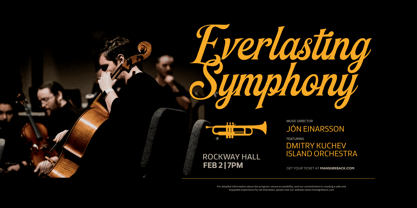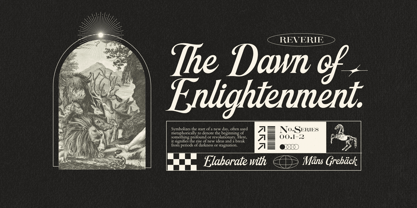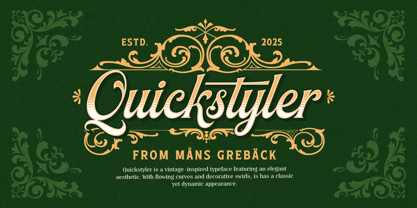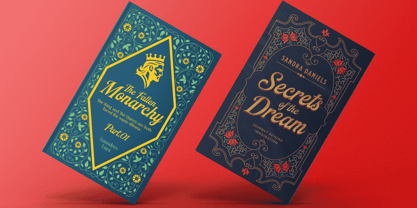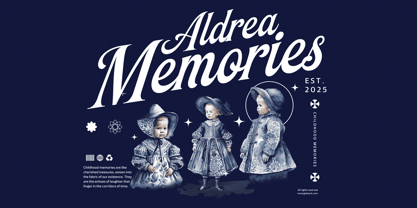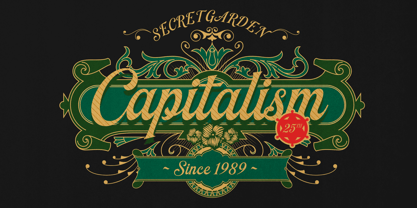
Quickstyler
by Mans Greback
The Quickstyler Font Family was designed by Måns Grebäck and published by Mans Greback. Quickstyler contains 4 styles and family package options. More about this family
Quickstyler is a formal script with Victorian influences.
The font showcases a beautiful, classy style with delicate serifs and a flowing rhythm. It feels at once traditional and elegant. Picture it on the cover of a classic novel or on a graceful invitation. It would be right at home as the logo for a high-end tea brand or as a headline in a fancy fashion spread.
The font is built with advanced OpenType functionality and guaranteed top-notch quality, containing stylistic and contextual alternates, ligatures and more automatic and manual features; all to give you full control and customizability.
It has extensive lingual support, covering all Latin-based languages, from North Europa to South Africa, from America to South-East Asia. It contains all characters and symbols you'll ever need, including all punctuation and numbers.